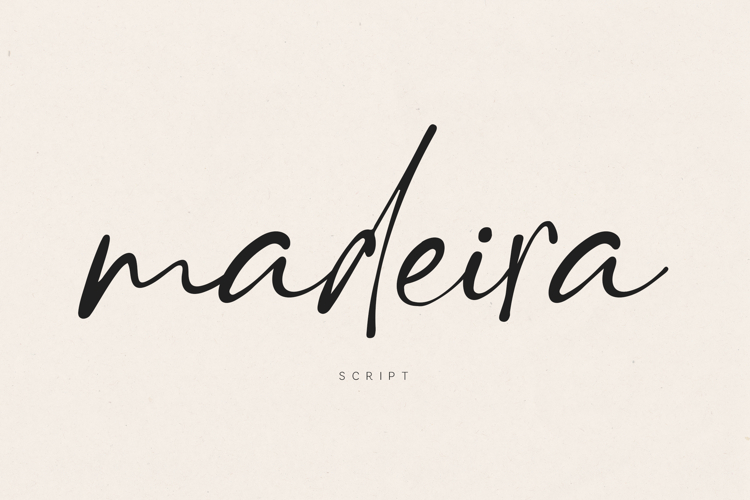
Madeira Elegant Signature Script Font
Madeira is a refined handwritten signature script designed to capture the natural flow and elegance of modern handwriting. The font features fluid strokes, expressive curves, and balanced letterforms that create a sophisticated and authentic handwritten appearance.
Its graceful rhythm and organic movement give Madeira a distinctive personality that feels stylish. The letterforms connect naturally, allowing words to flow smoothly across layouts while maintaining clarity and readability.
Madeira is designed for projects where typography needs to feel elegant and expressive. The script style works beautifully for branding, logos, wedding invitations, social media graphics, packaging, editorial designs, greeting cards, and signature-style typography.
The typeface includes uppercase and lowercase letters, numbers, punctuation, symbols, and extended multilingual characters, making it suitable for international design projects and multilingual branding.
With its smooth strokes and natural handwritten flow, Madeira brings warmth, elegance to modern typography projects.